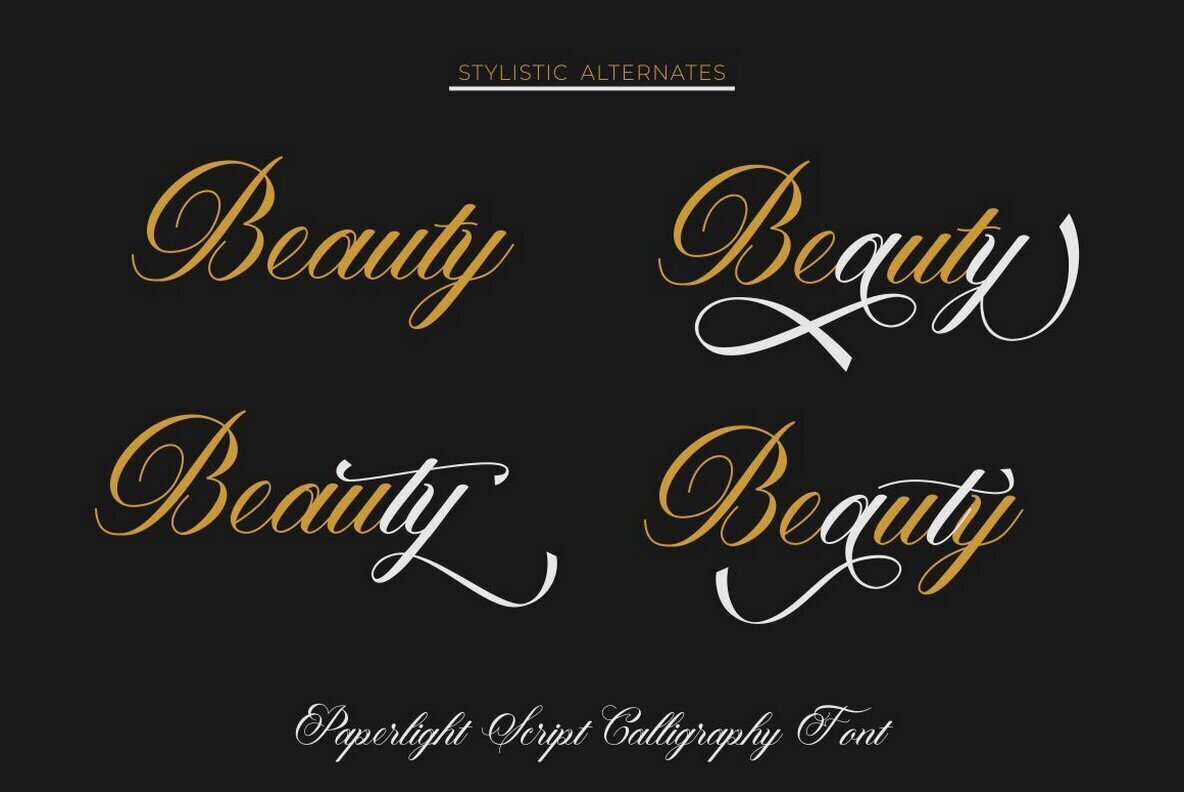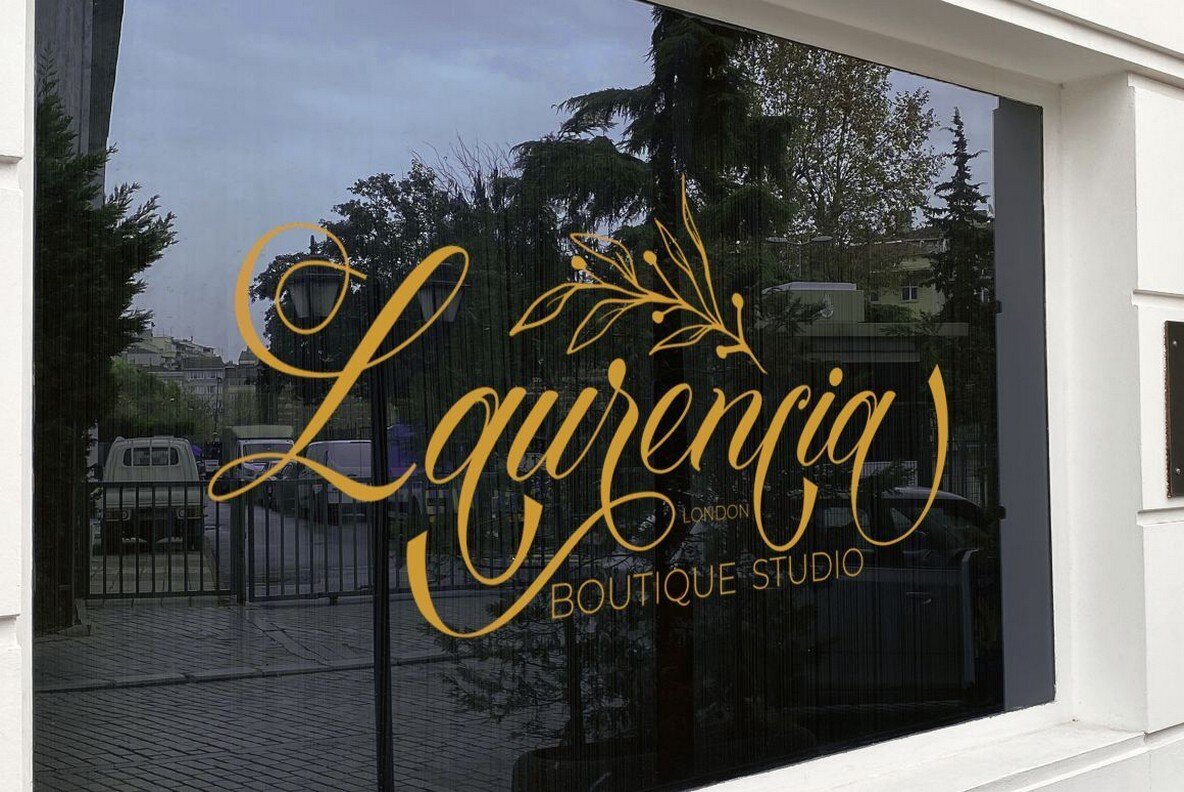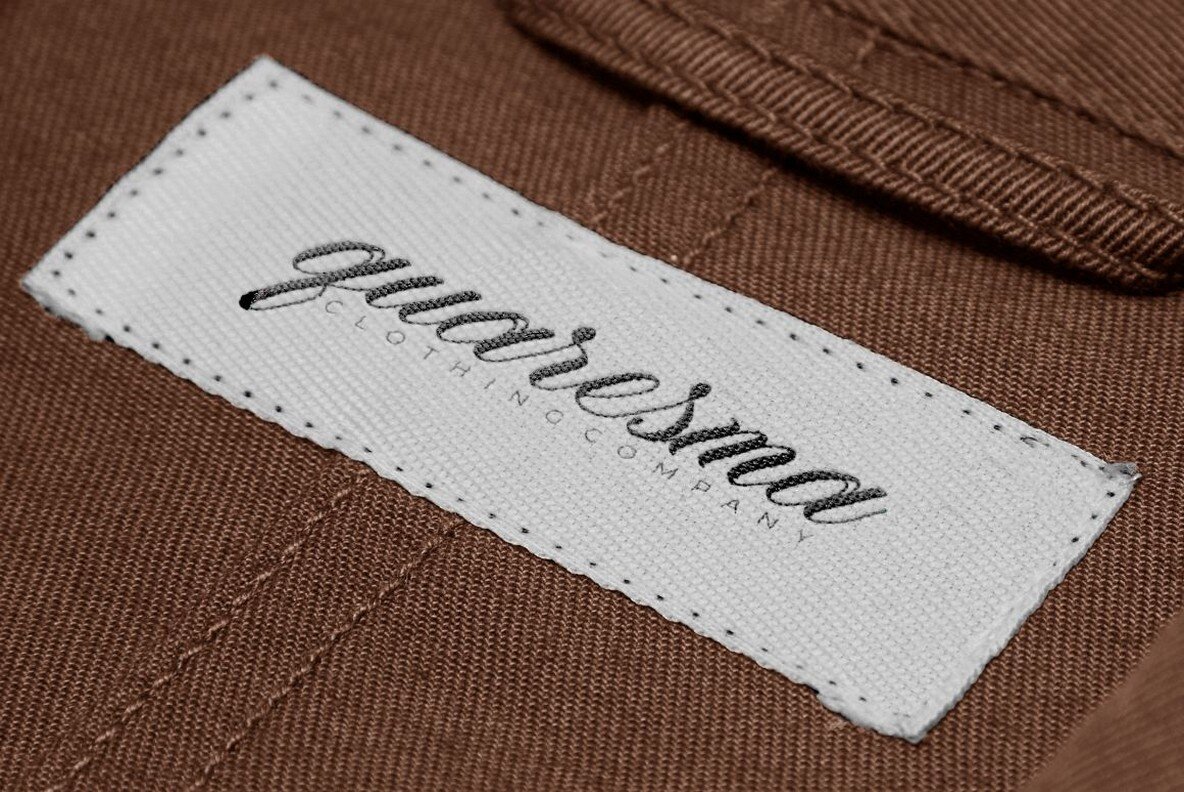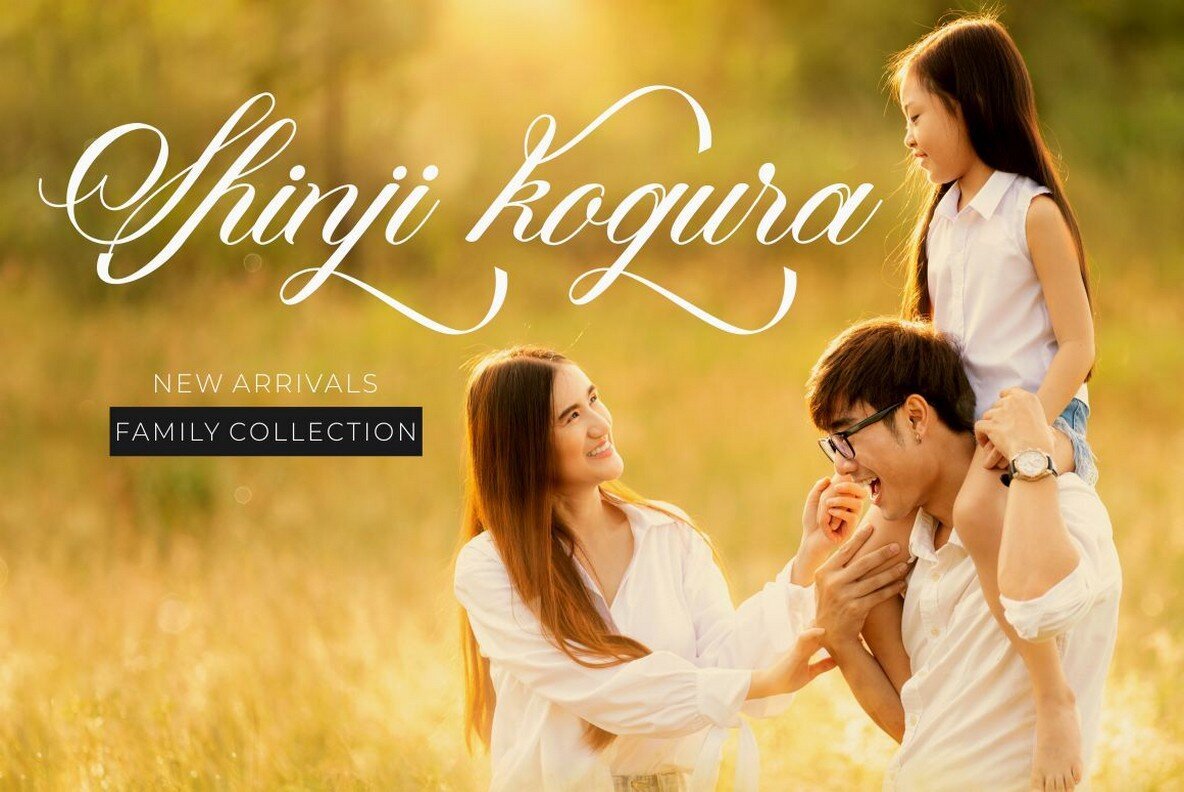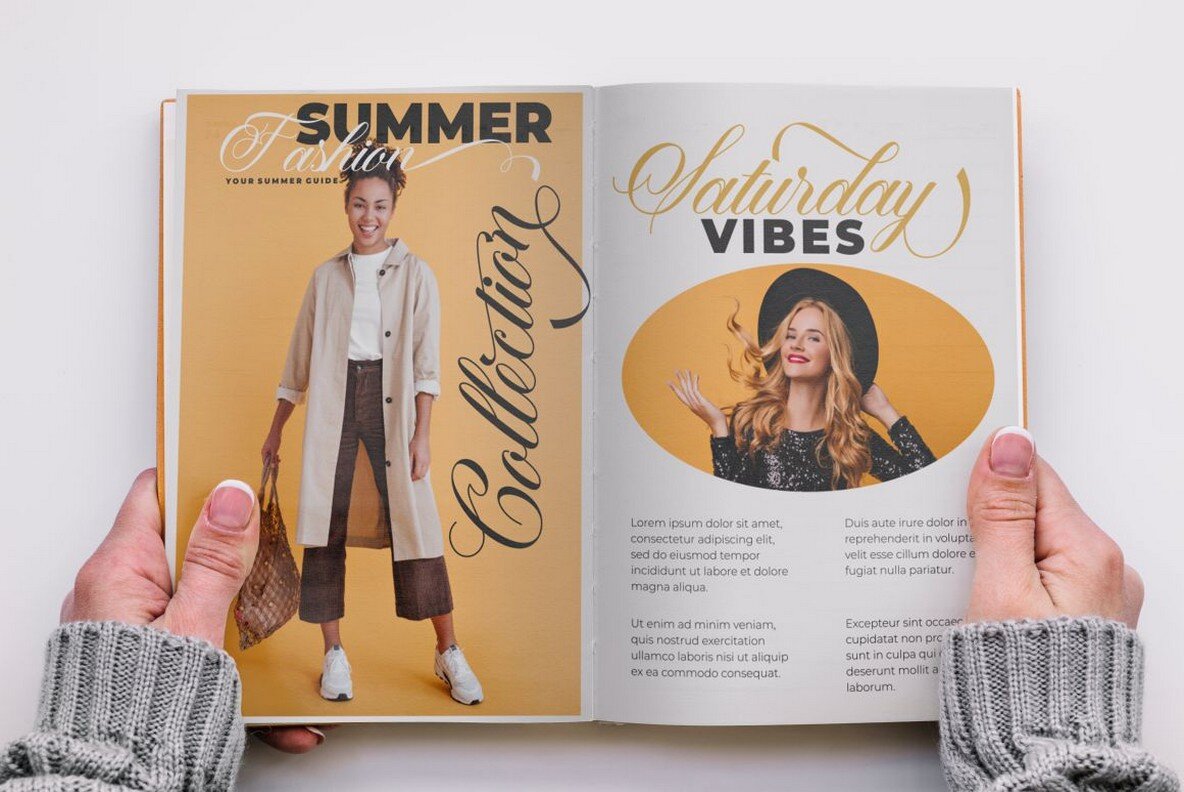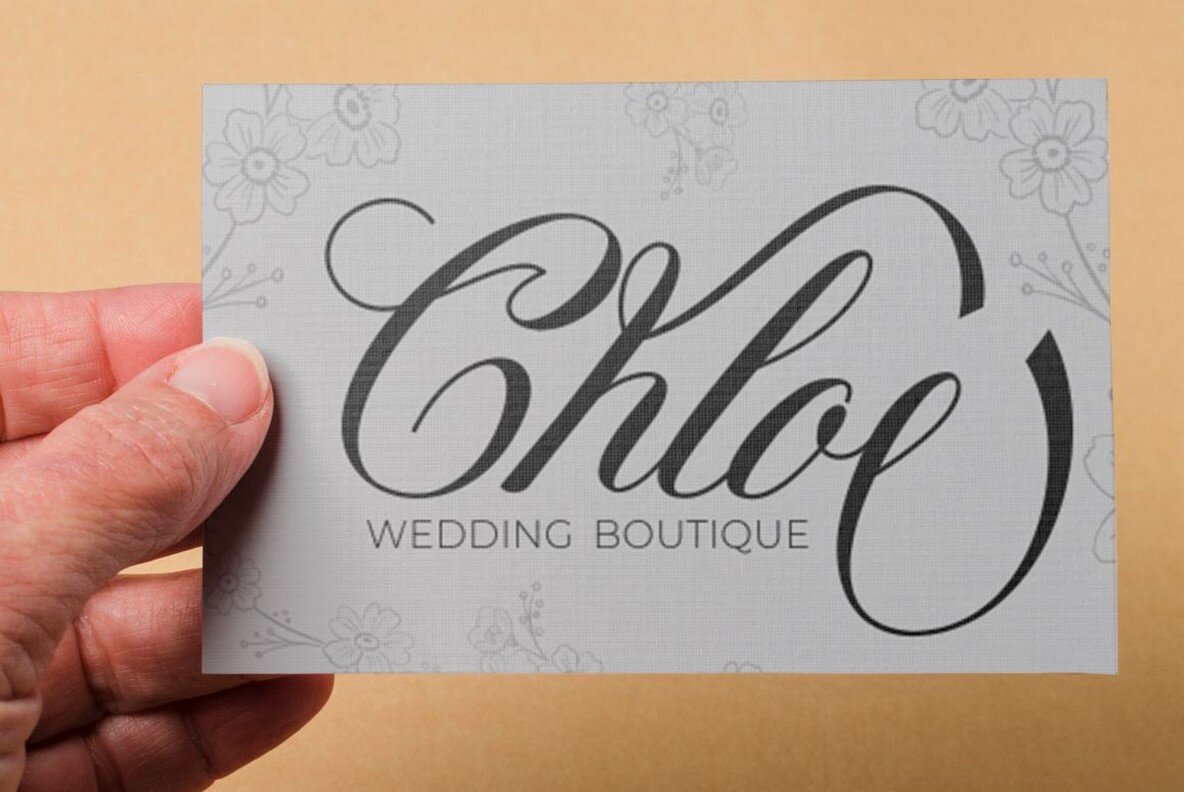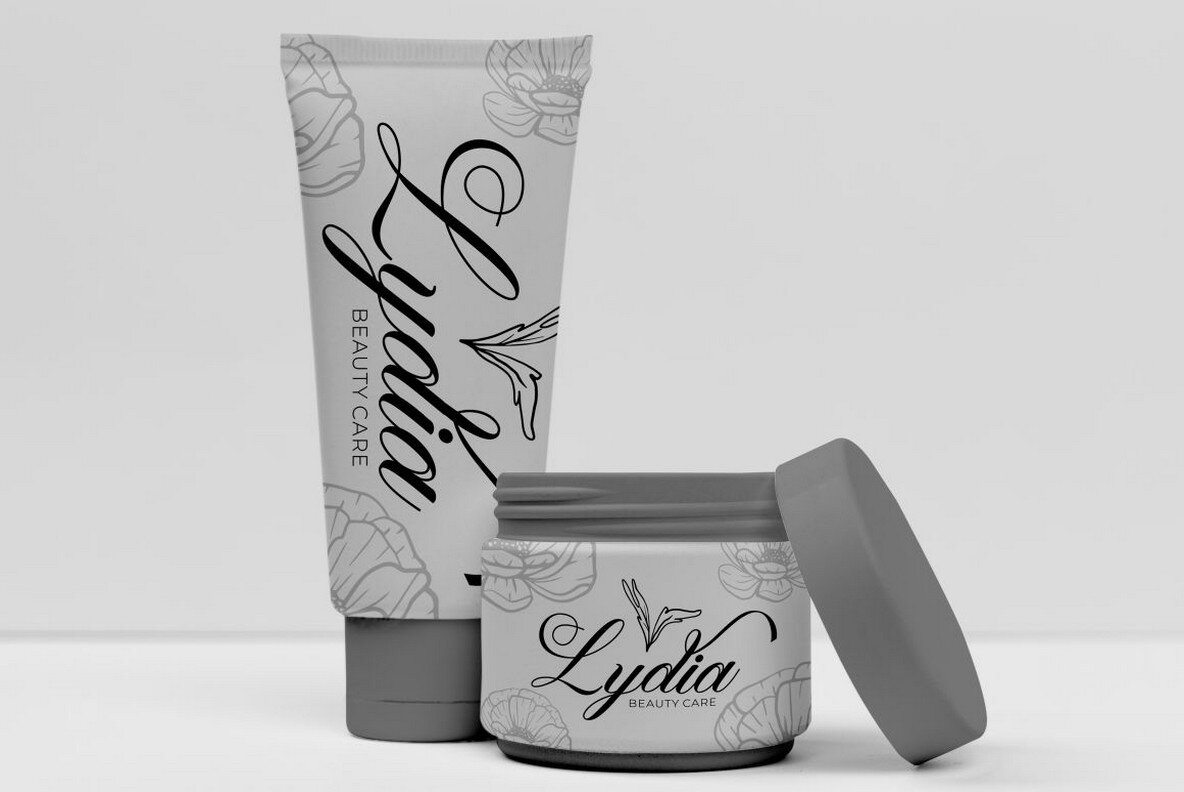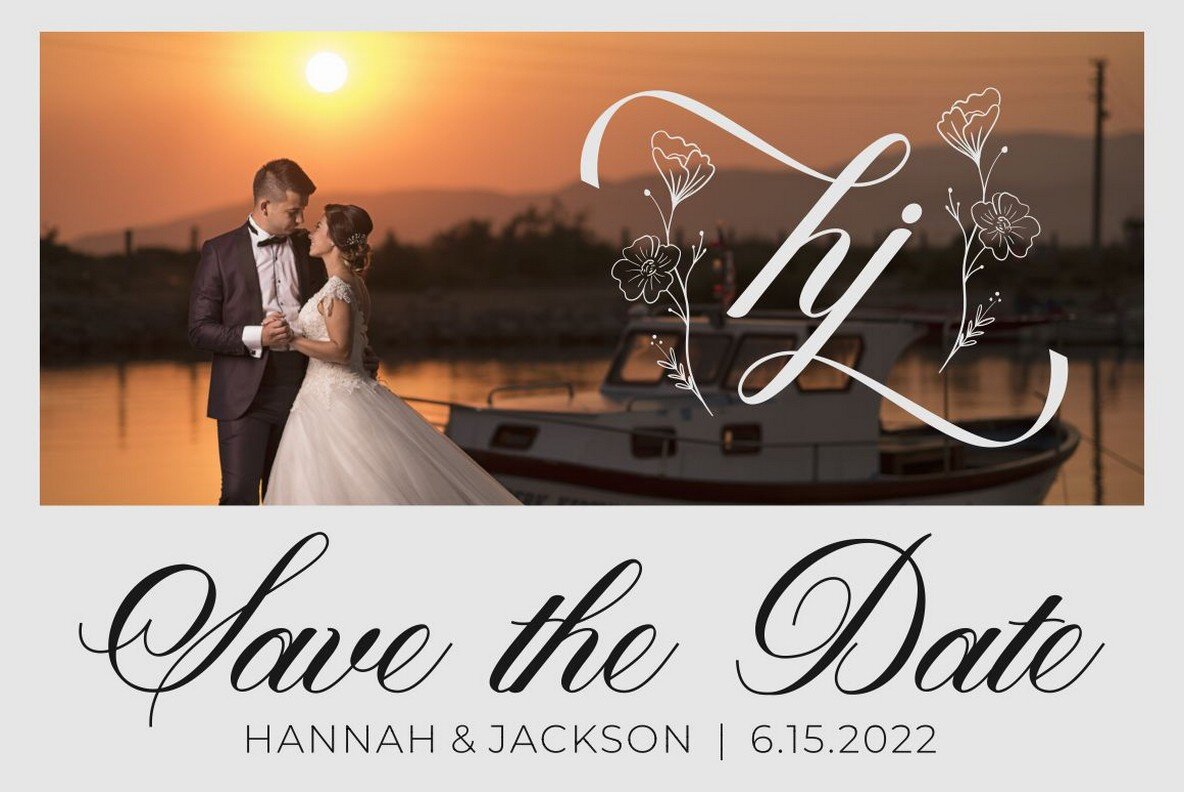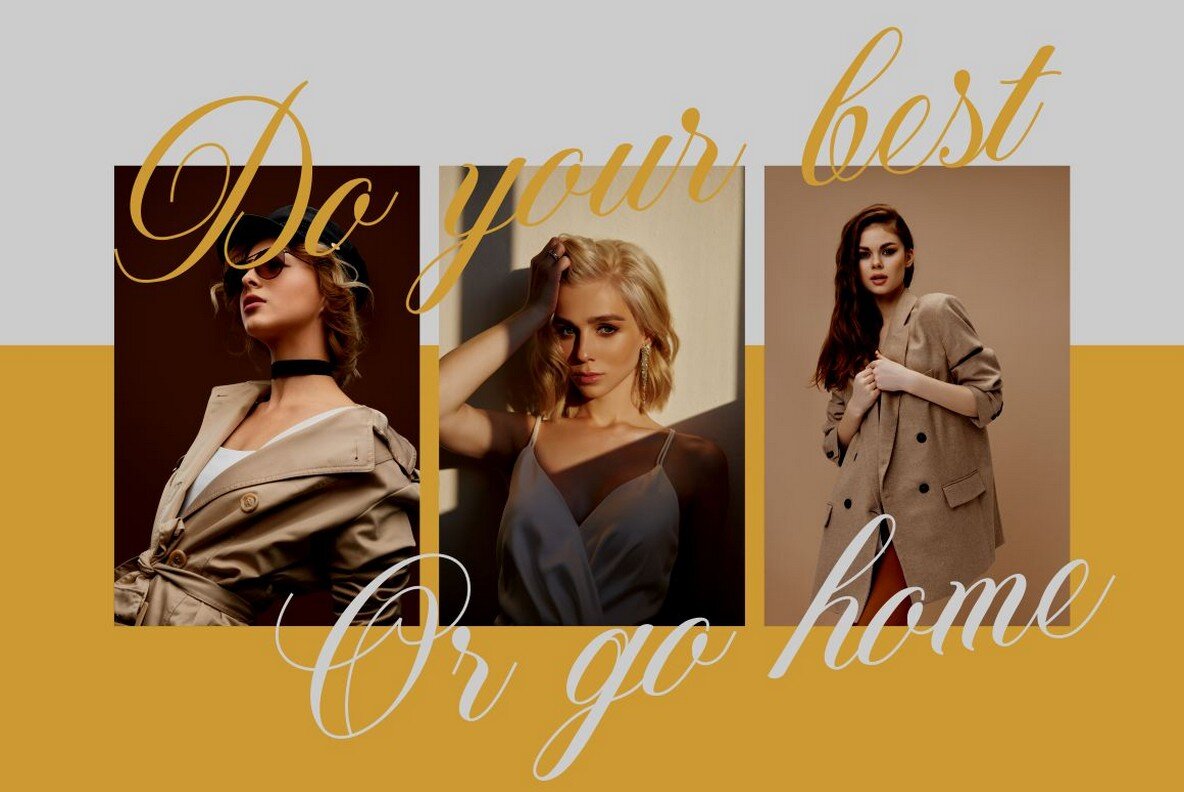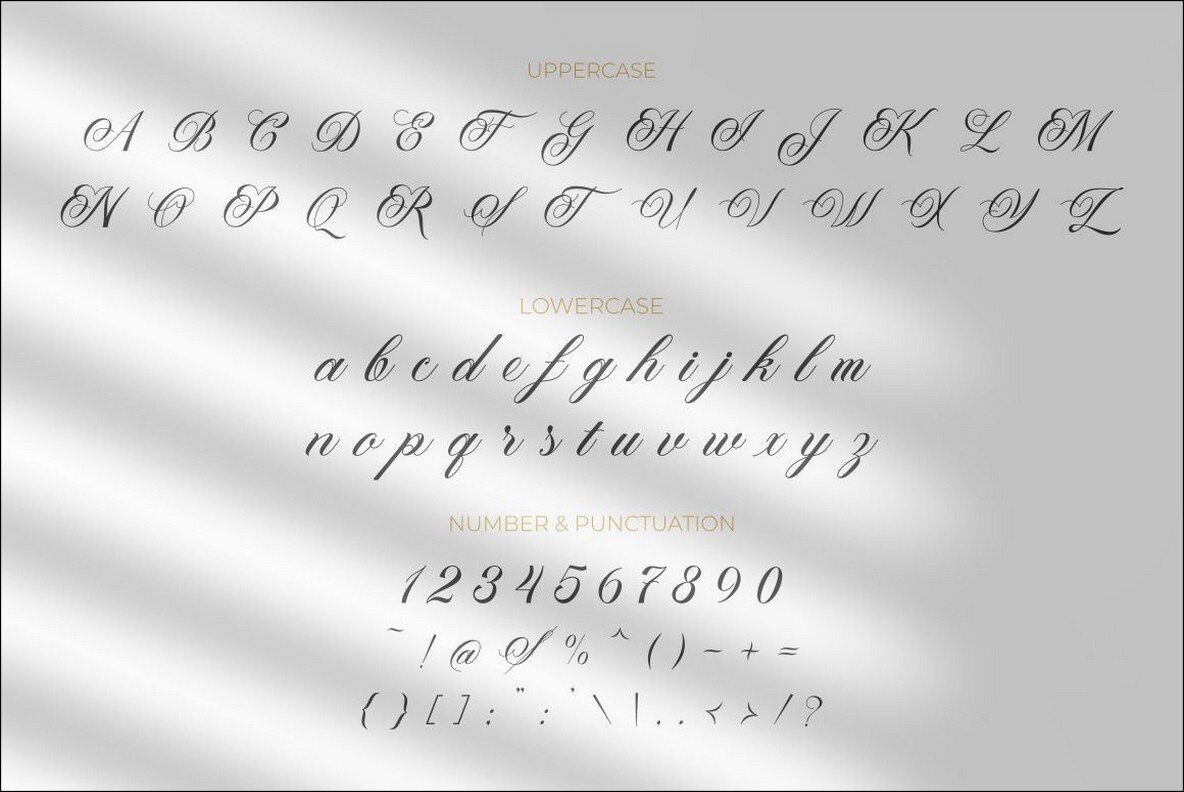
Paperlight Script Font
Paperlight Script
Paperlight Script is a beautiful, calligraphy font with a classic style and a touch of elegance. This handcrafted font was inspired by the handwriting of ancient manuscripts and has been designed with high attention to detail, precision and smoothness.
The alternative characters in Paperlight Script have been divided into several OpenType features such as Swash, Stylistic Sets, Stylistic Alternates, Contextual Alternates and Ligatures. This makes it perfect for creating sophisticated designs for weddings, books, greeting cards, logos, branding, business cards and certificates.
If you're looking for an elegant, stylish and luxurious calligraphy font, Paperlight Script is the perfect choice. Add a touch of class to your next project with this beautifully crafted font.